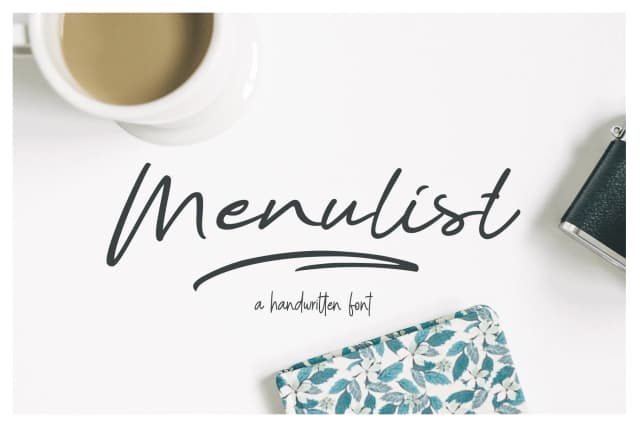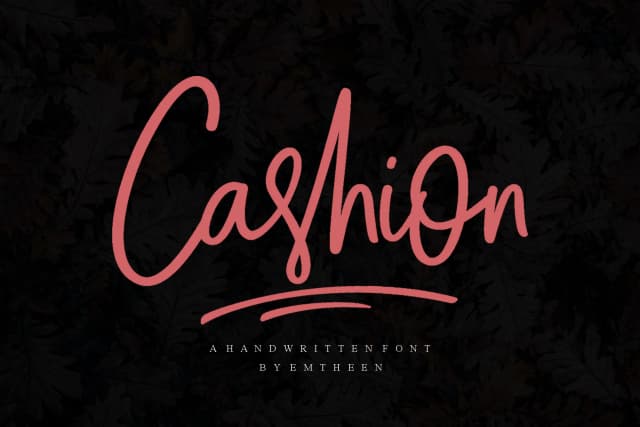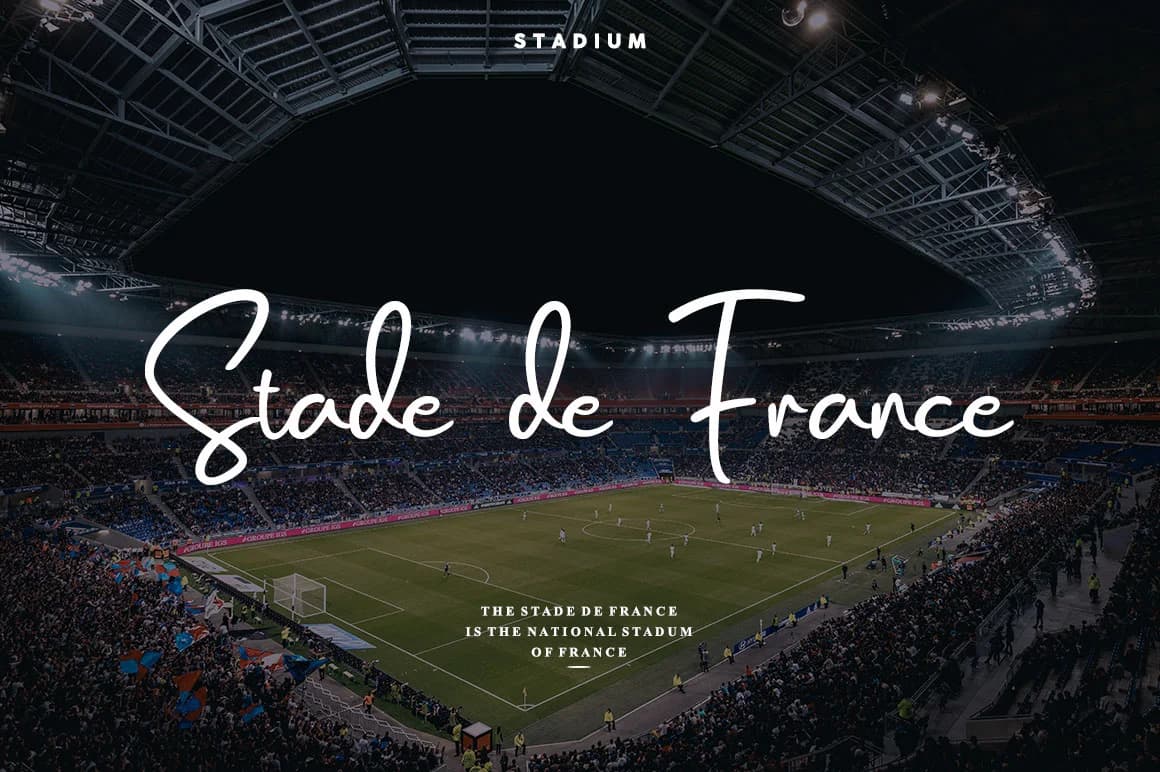
Salmon by Emtheen Std. is a flowing contemporary script that merges modern design sensibility with the authentic warmth of handwritten letterforms. The font's clean, consistent strokes create an elegant visual voice that performs across diverse applications, from intimate personal projects to comprehensive professional branding initiatives.
This script proves invaluable for designers crafting wedding invitation suites, where it conveys romantic emotion without sacrificing sophistication and polish. Luxury fashion brands can leverage Salmon for developing distinctive handwritten brand signatures that stand apart in competitive markets. The font works beautifully for product packaging in artisanal, cosmetics, and skincare sectors, where consumers respond to brands that balance visual refinement with personally crafted charm. Certificate designs, formal stationery, gift packaging, and boutique branding projects all benefit from its refined character. The readable letterforms also make Salmon effective for social media graphics and promotional designs where visual distinction matters in crowded digital landscapes.
Salmon's consistent letterspacing and weight distribution ensure reliable clarity when displayed at headline scale or integrated as supporting typography within larger layouts. The font maintains its visual impact and legibility across varied design contexts, supporting versatile creative choices. Discover Salmon Font on Creative Fabrica and bring its sophisticated character to your next design vision.
Salmon Font is a script font that shines as a display or heading face. Pair it with a clean sans-serif or serif font for body text β the contrast creates a clear hierarchy while the two styles stay balanced and easy to read.
Salmon Font
by Emtheen Std.